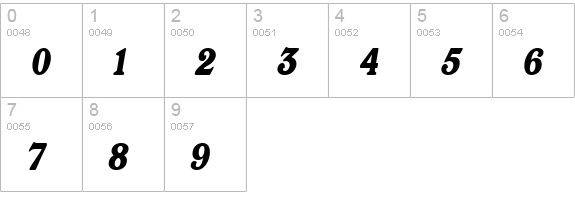
DictionaryCondensed Italic Font Details
DictionaryCondensed Italic is a distinctive, italic variant in the DictionaryCondensed typeface family \xE2\x80\x94 well suited to design and typography projects.
DictionaryCondensed Italic font is a sleek and modern typeface that exudes elegance and sophistication. Its condensed design makes it perfect for creating eye-catching headlines and titles. The italic style adds a touch of flair and drama to any design project. This font is not only stylish but also highly versatile, suitable for a wide range of applications including branding, packaging, advertising, and more. Its clean lines and distinct letterforms make it easy to read while still maintaining a sense of uniqueness. Best of all, DictionaryCondensed Italic font is available for free download at FontsMarket.com. This means you can easily add this beautiful typeface to your font library without breaking the bank. Don't miss out on the opportunity to enhance your designs with this stunning font today!